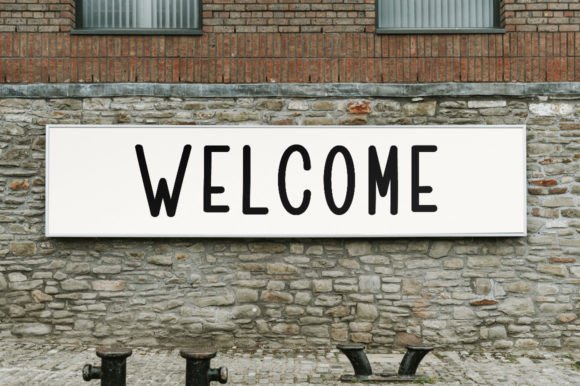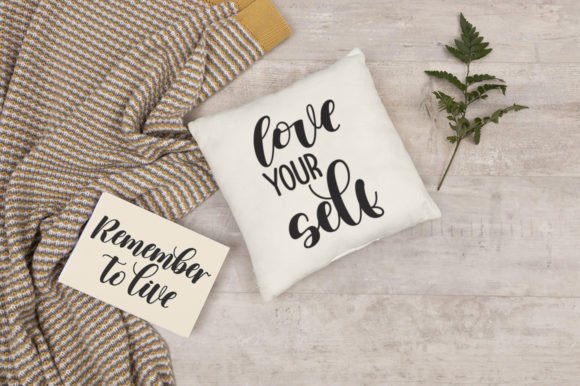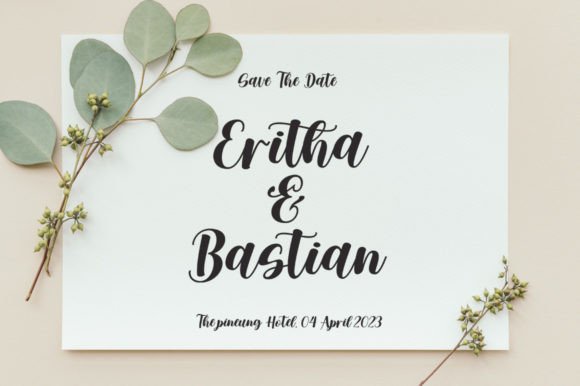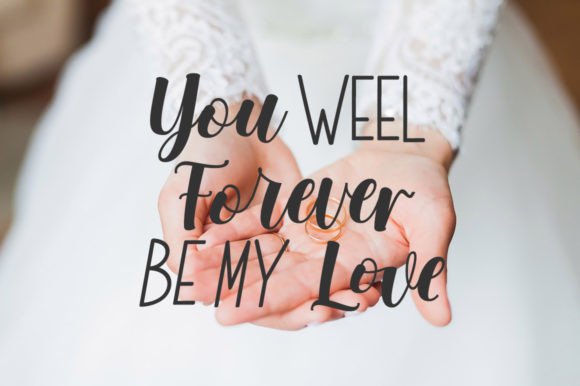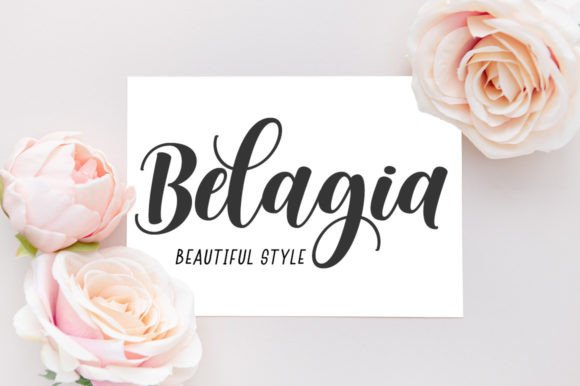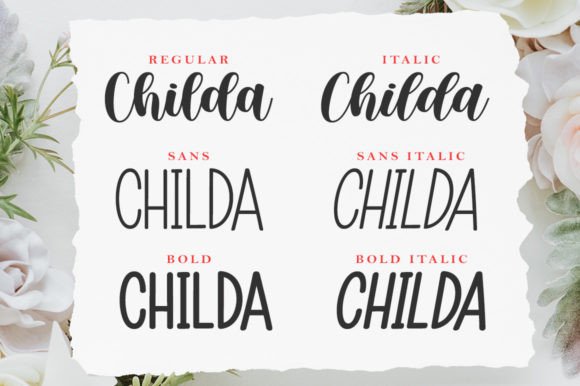
Introduction to Childa Duo Font
Childa is a spectacular duo font (script and sans serif).
Incredibly versatile, this font is suitable for a large variety of design ideas No matter the topic, this font will be an incredible asset to your fontsโ library, as it has the potential to elevate any creation.
Key Features of Childa Duo Font